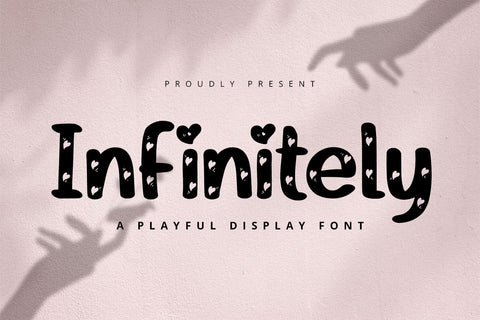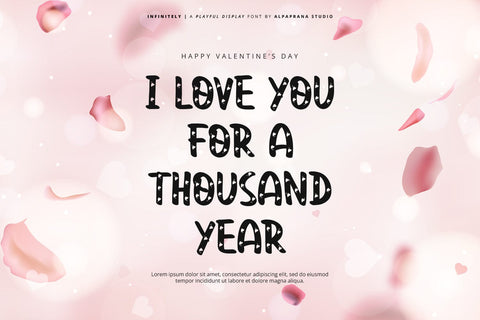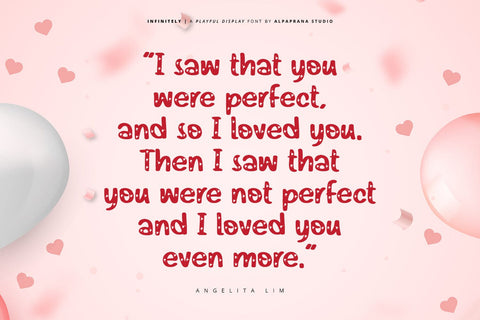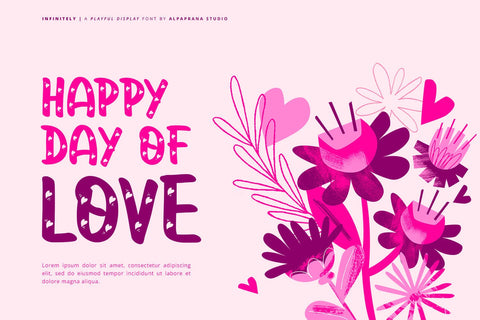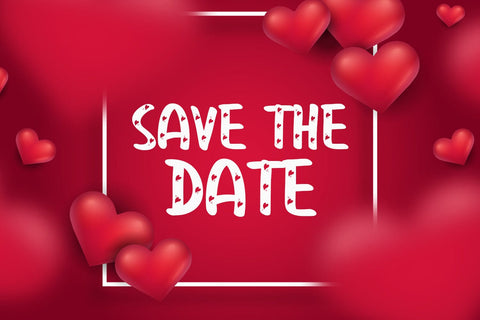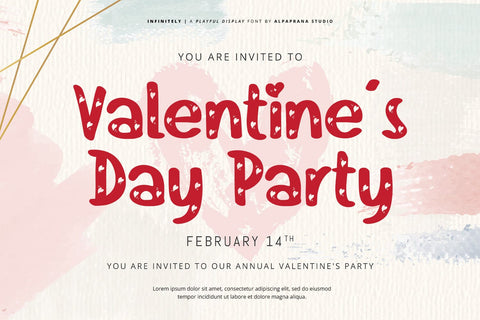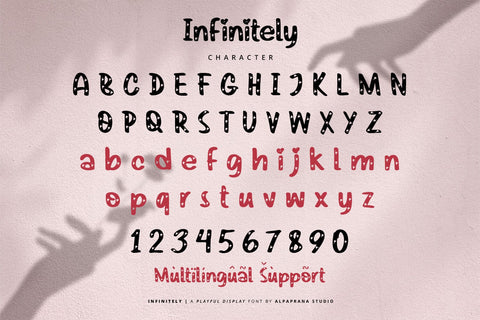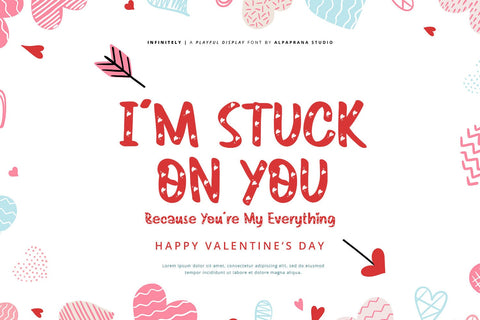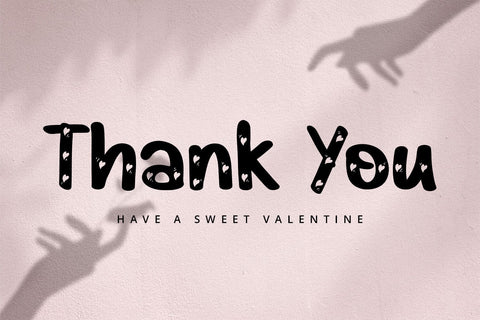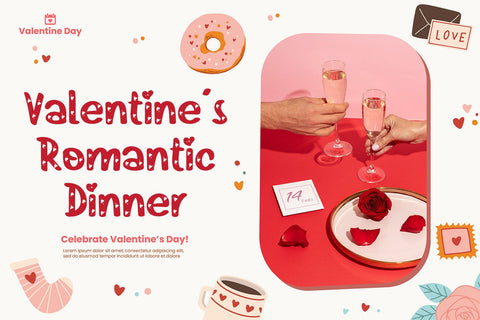
Infinitely - Playful Display Font
Infinitely is a playful display font with romantic and casual feels. It will be perfectly used for Branding, Logo Design, Lettering, Logotype, Clothing, Poster, magazine, packaging, posters, shopping bags, t-shirts, book covers, photography, special events and other design project.